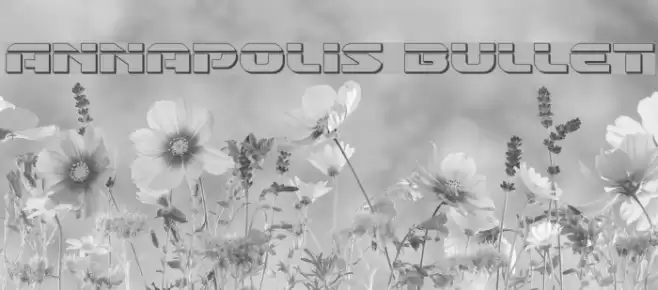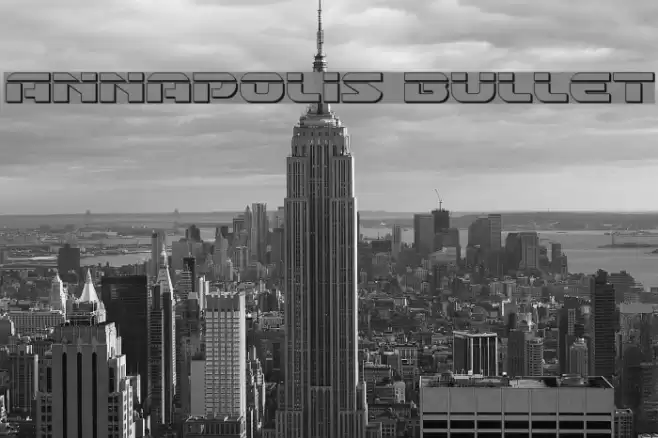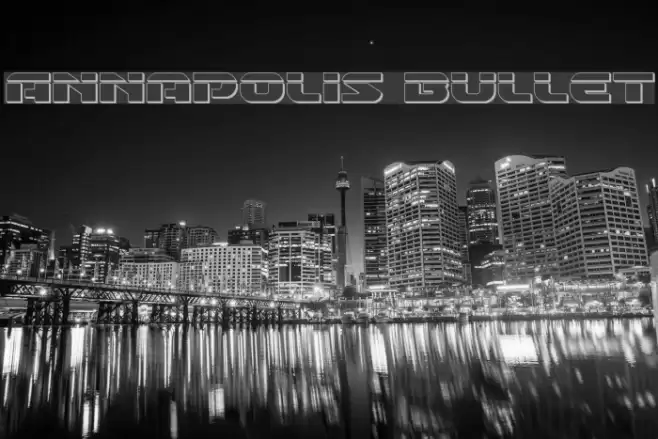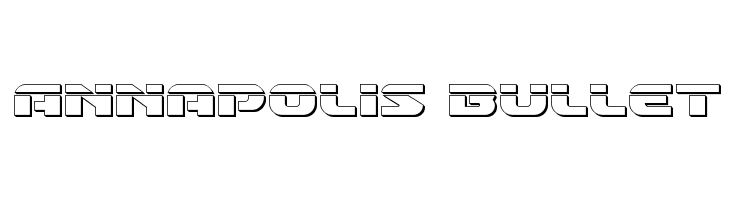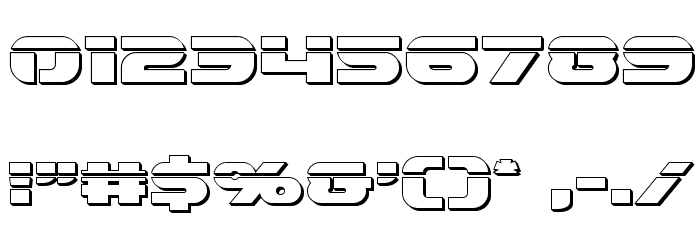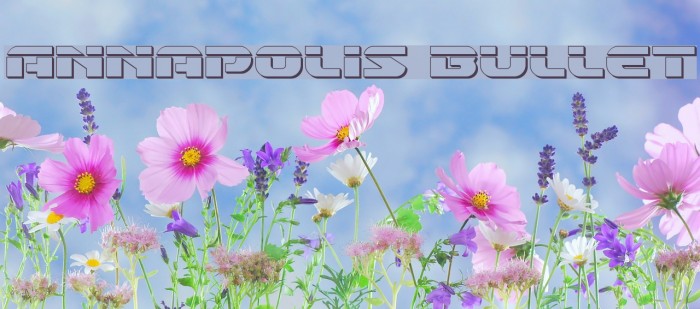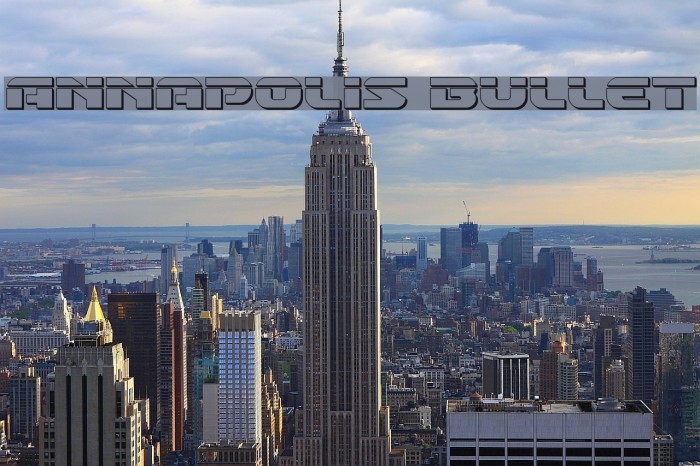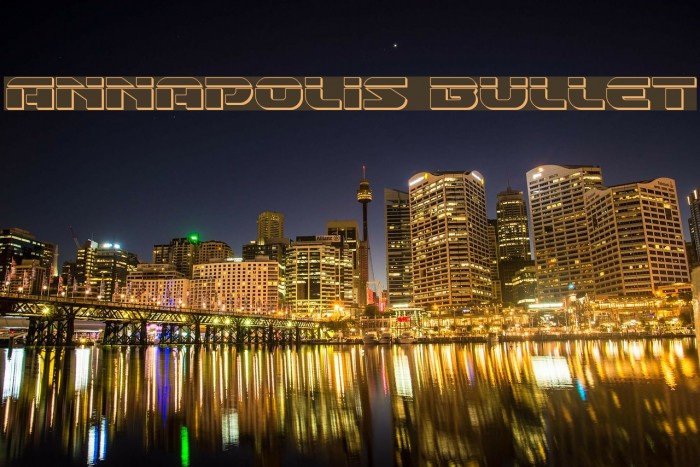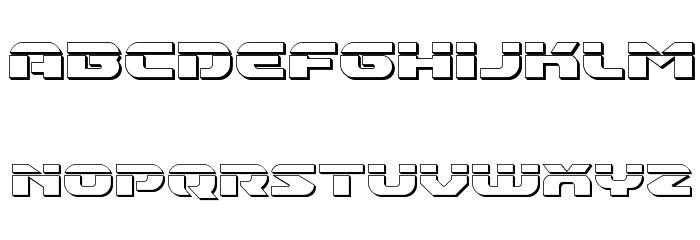
Annapolis Bullet Font
Annapolis Bullet Description
This font features a bold, futuristic design with a geometric structure. Each character is outlined with a double line, creating a hollow effect that adds depth and dimension. The angular and blocky shapes give it a modern and tech-inspired appearance, making it stand out in digital and print media. The uppercase and lowercase letters maintain a consistent style, while the numbers and special characters complement the overall aesthetic. This font is ideal for projects that require a strong visual impact and a contemporary feel.
A bold, futuristic font with geometric, hollow characters from Sci-fi fonts.